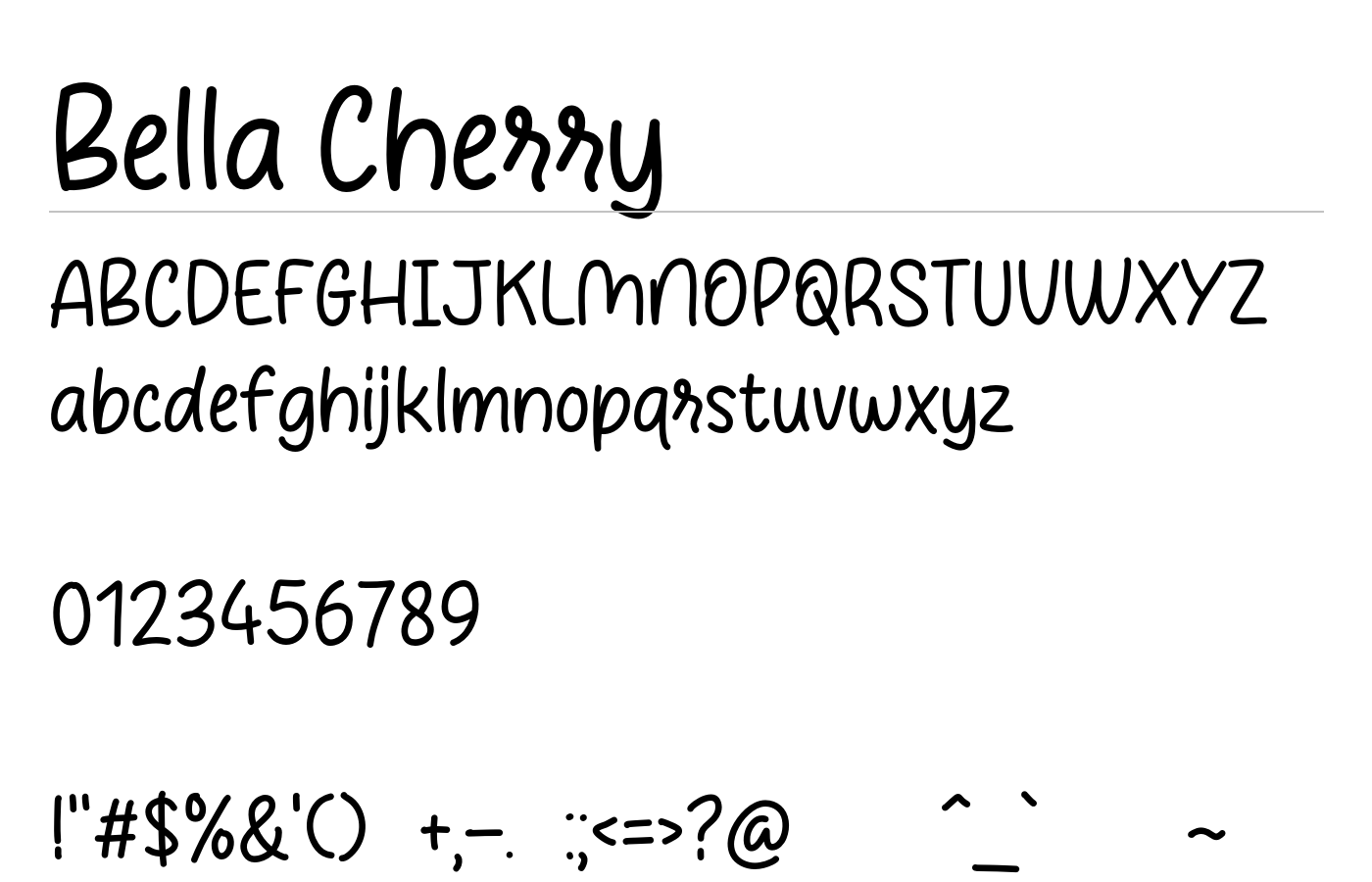
Bella Cherry is a playful, casual handwritten sans serif font with a light weight and friendly rounded strokes that create an approachable, informal feel. Its simple, slightly irregular letterforms and moderate x-height make it perfect for projects that need a personal, warm touch, fitting well in children’s books, casual branding, or fun web content. This font adds charm and personality where a relaxed and cheerful tone is desired.
Bella Cherry Font
About Bella Cherry Font